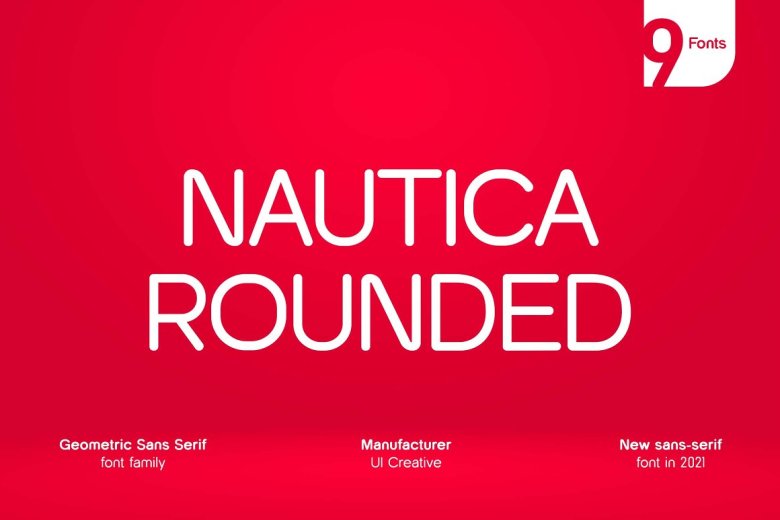
Nautica Rounded Font
Nautica Rounded is an exquisite smooth sans-serif typeface family featuring bold and chunky lines, as well as adorable curves. Perfect for logo design, stationery, signature wedding invitations, typography quotes magazines or book covers, headers for websites and packaging design, clothing branding design projects and much more – Nautica Roundedis offers something suitable for nearly every purpose!
Nautica Rounded Sans Serif Font